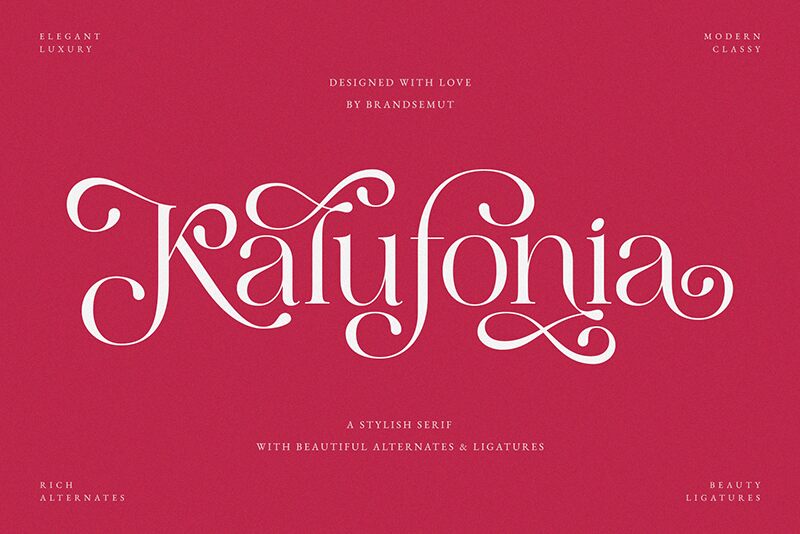
Kalufonia Regular
Kalufonia, crafted by BrandSemut, is a serif font that exudes elegance and sophistication. Its distinct serifs and gently flowing curves lend it a classic yet contemporary feel, perfect for those seeking to imbue their projects with a sense of refined grace. The letterforms exhibit a subtle playfulness within their structure, making Kalufonia both inviting and distinguished.
Ideal for editorial use, branding, and sophisticated invitations, this font shines in contexts that demand a touch of class without sacrificing modernity. Its aesthetic charm ensures that any text set in Kalufonia will capture attention while remaining eminently readable. Whether used for headlines or body text, Kalufonia promises to elevate the visual appeal of your design with its timeless allure.